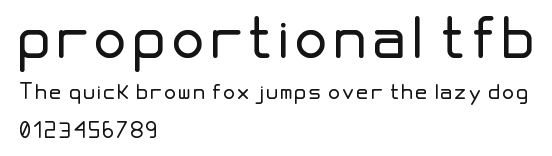
• Font Name: proportional tfb
• Full Font Name: proportional tfb
• Version: Version 1.00 November 17, 2012, initial release
• Designer: kaiserzharkhan
About proportional tfb.ttf
proportional tfb.ttf is a modern, elegant sans-serif font designed for ultimate readability and visual harmony. Perfect for branding, headlines, web design, and print materials.